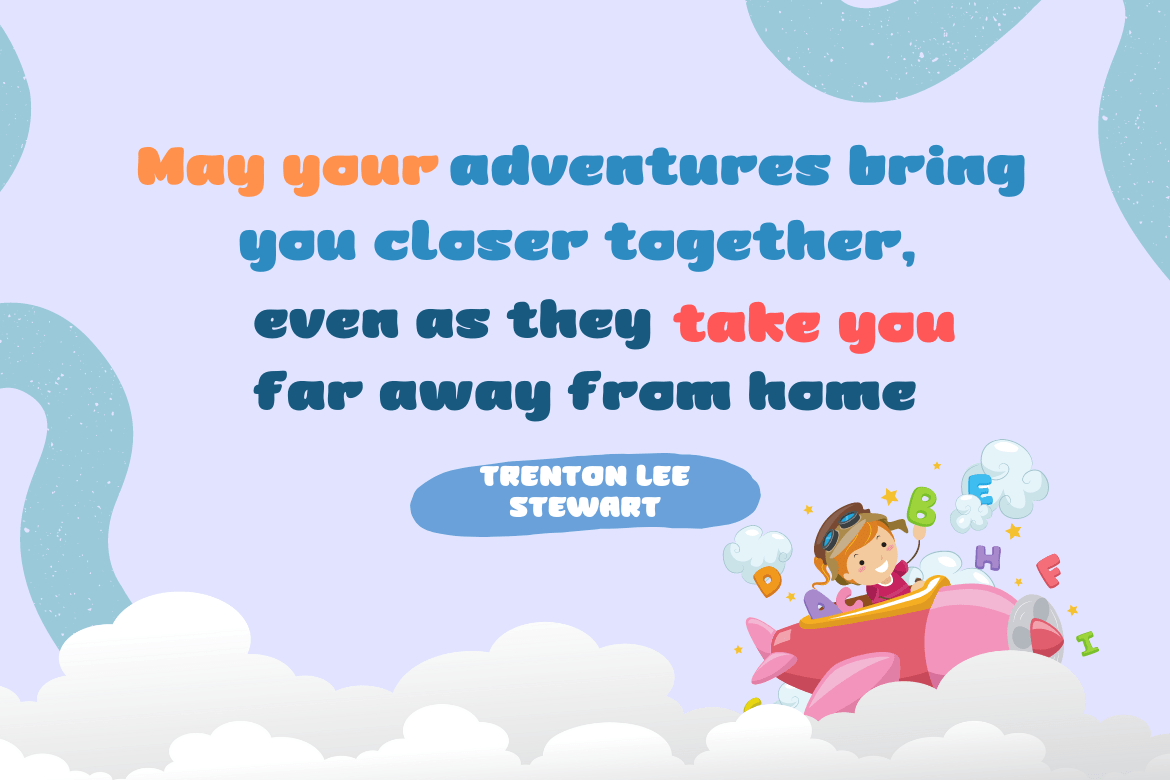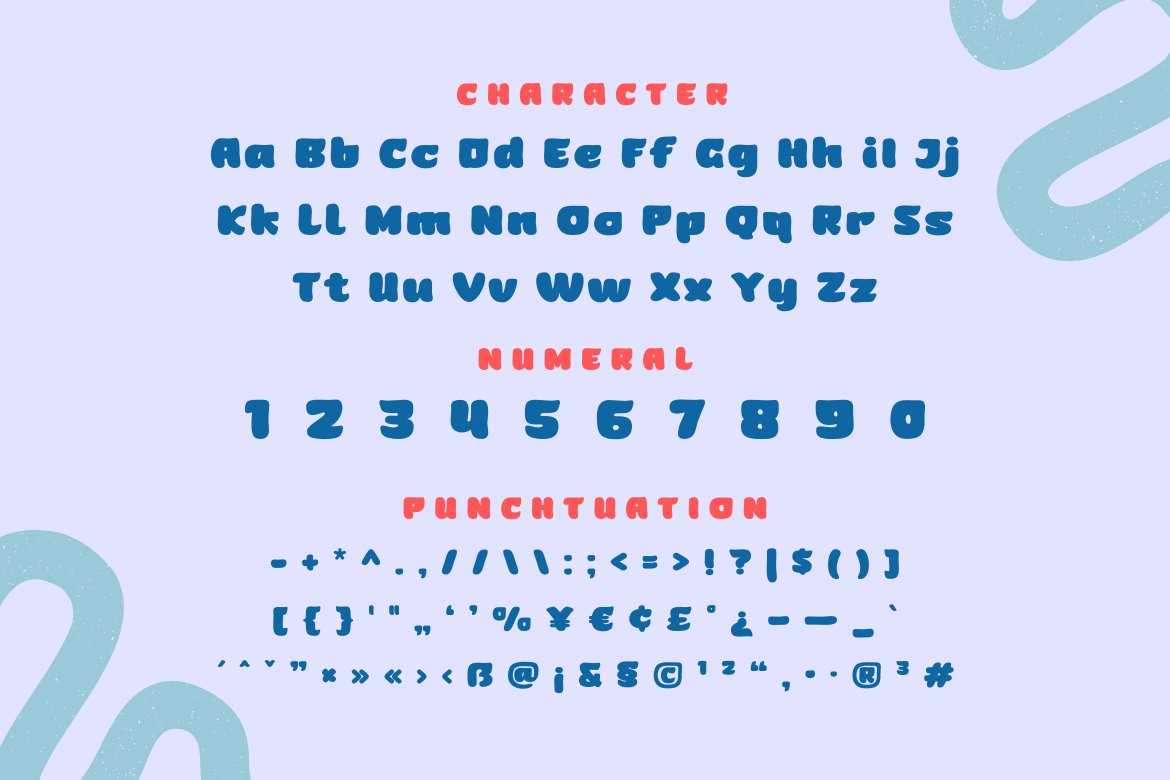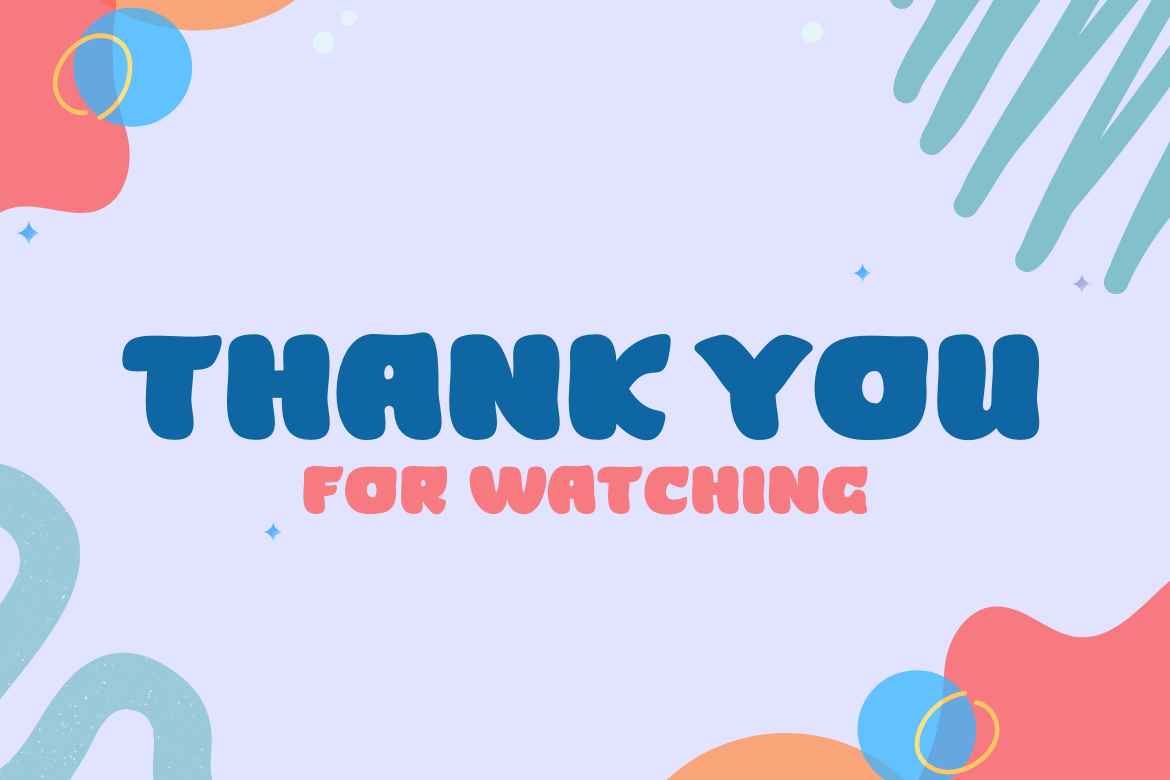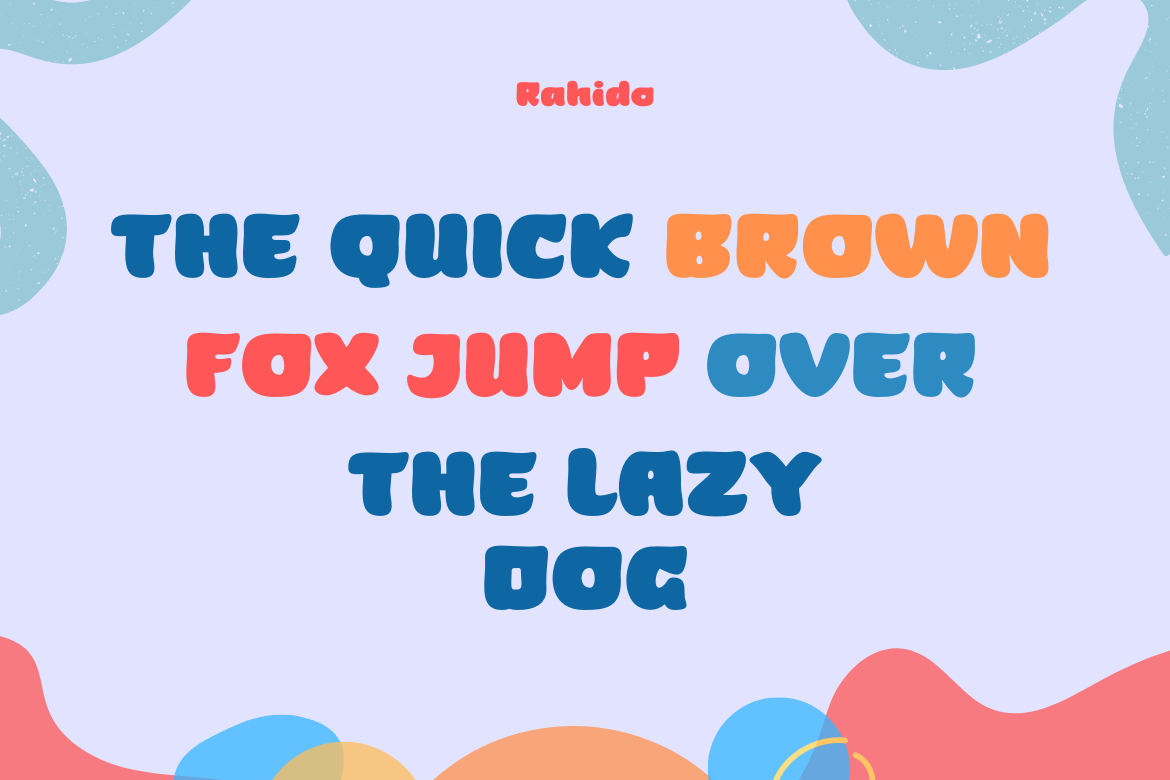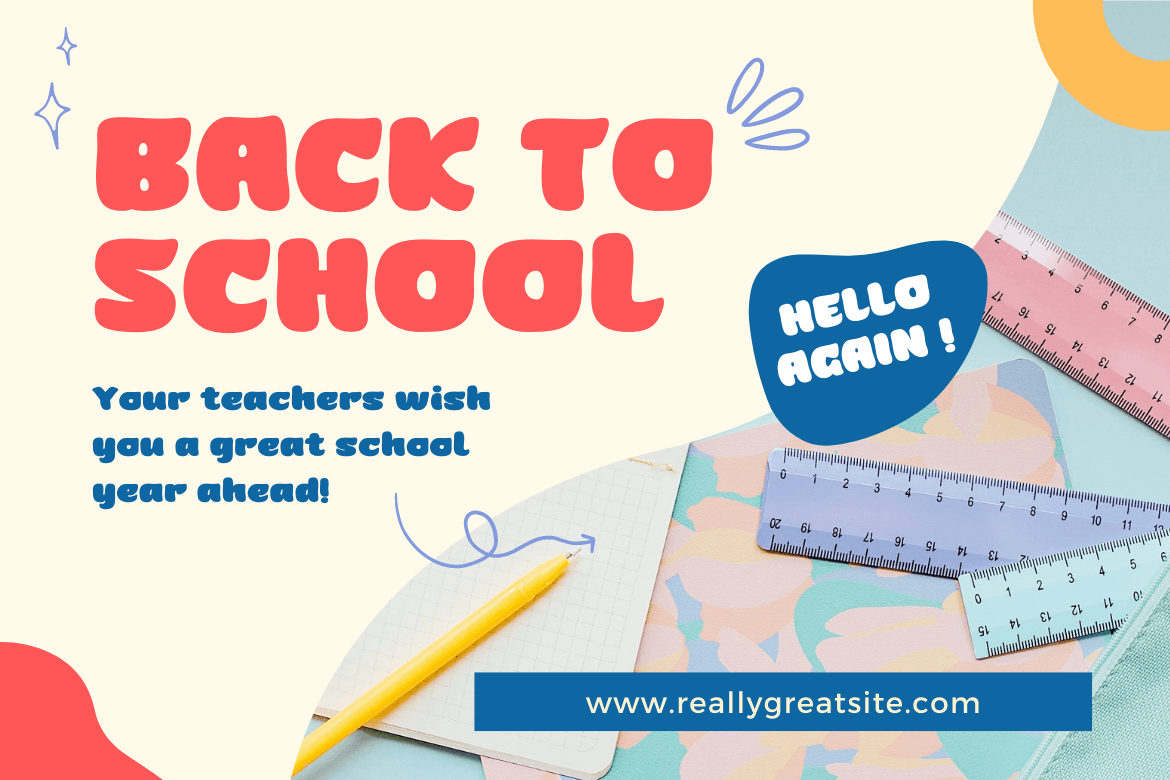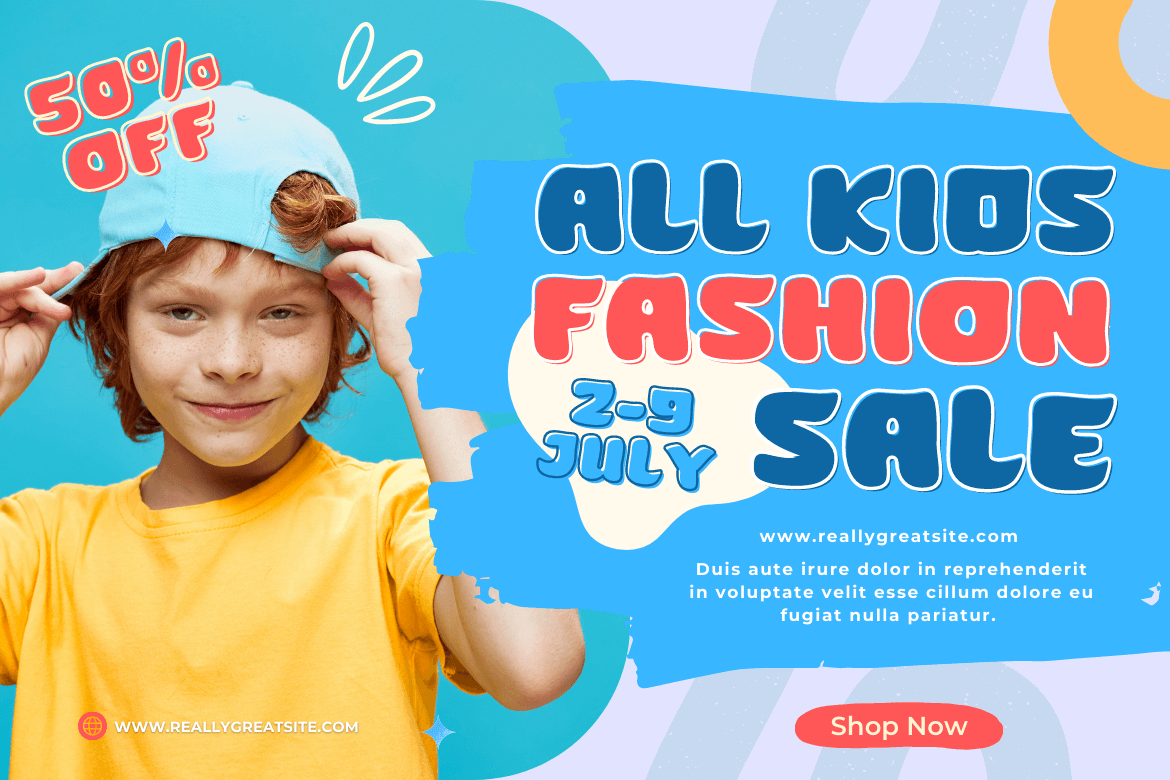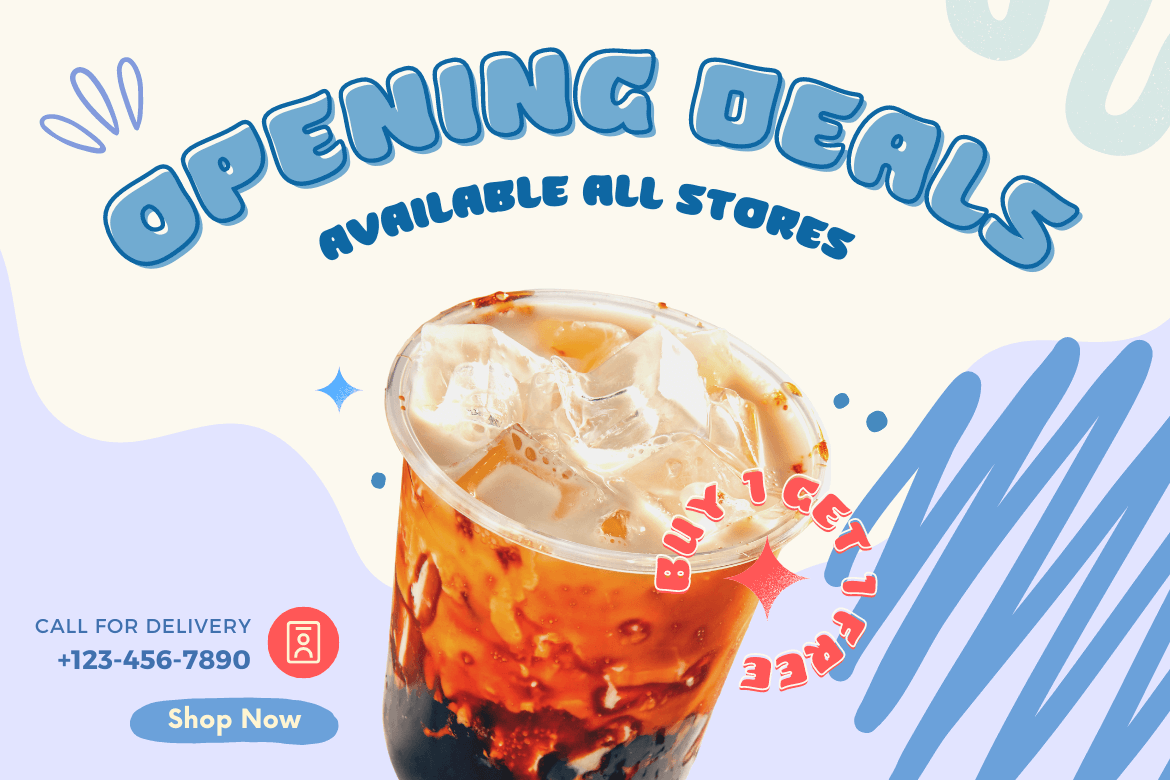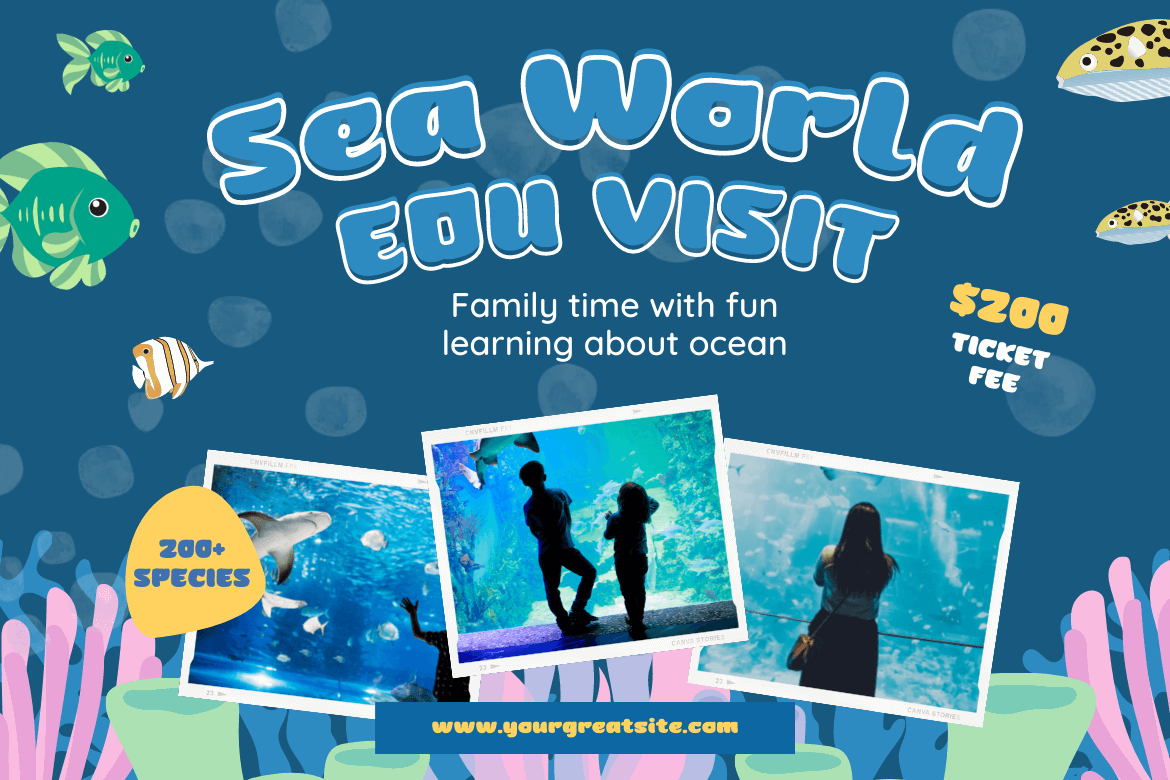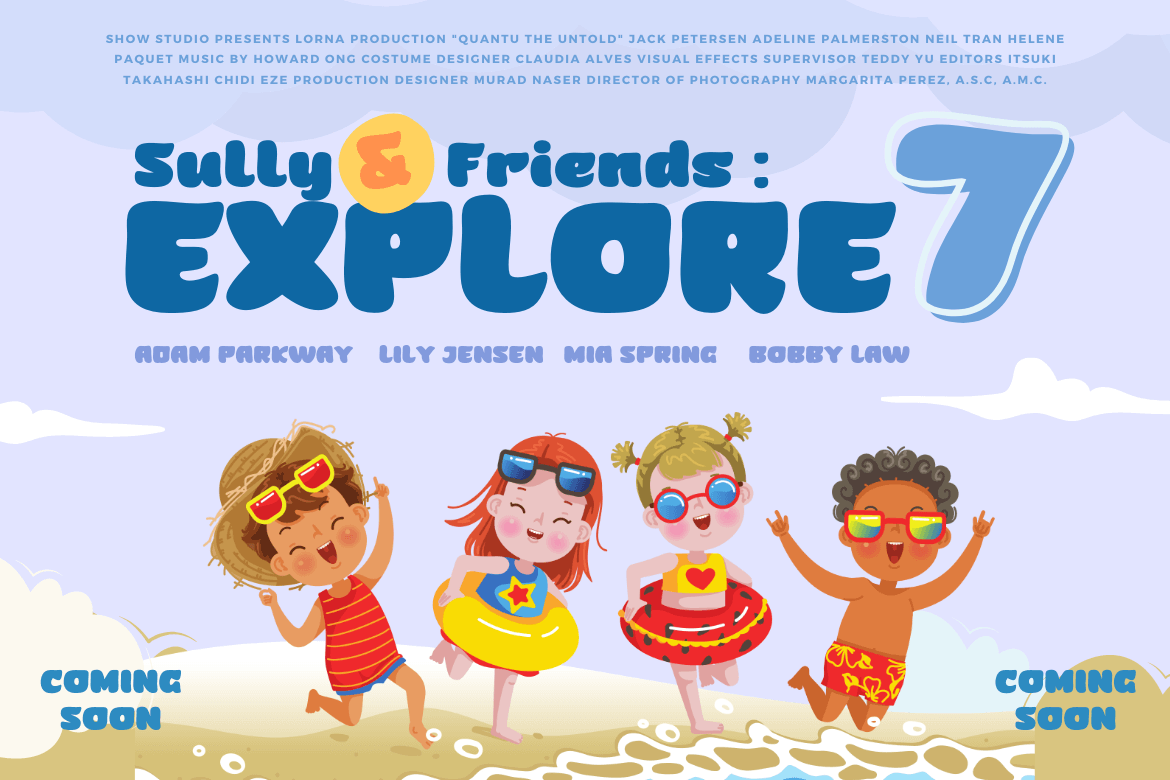
Rahido
This relaxed and formal Rahido font with a san serif look is for you if you like fonts that look cute and pretty. Its lovely curves make it ideal for any type of visual design in your project, and when used, it has a lovely appearance.